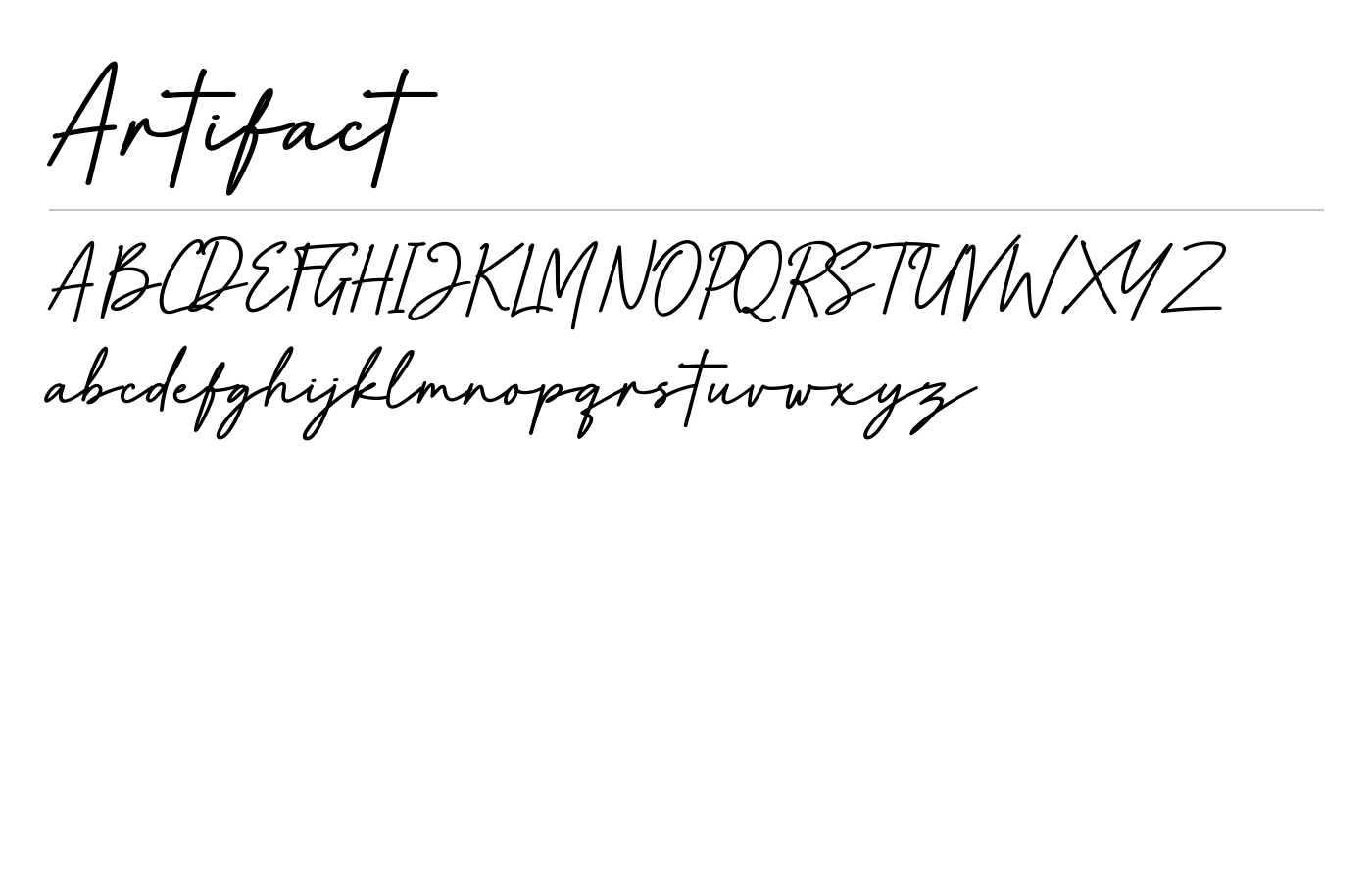
Artifact is a sleek, modern script font with a handwritten feel, characterized by its thin, slightly uneven strokes and elegant letterforms that suggest personal expression. Its tall x-height, smooth curves, and open spacing make it ideal for creative projects that want to convey warmth, approachability, and a touch of sophistication, such as branding, invitations, or social media graphics. This font works best for headlines or short text where its stylish, casual vibe can truly shine.
Artifact Font